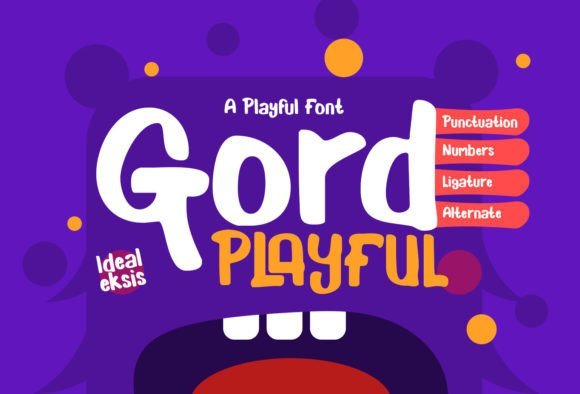
Remember that moment when you stumbled upon the perfect font to match your creative vision? For designers, finding that one special font can make all the difference in bringing a project to life. It’s that feeling of excitement and joy that I’m about to share with you, as we dive into the delightful world of the Gord Playful Font.
This charming font is designed to add a dash of playfulness to your designs, making it perfect for projects that call for a lighthearted and cheerful vibe. With its rounded edges and playful curves, the Gord Playful Font exudes a friendly and approachable feel that’s sure to captivate your audience. Whether you’re working on a children’s book, a party invitation, or any other design that requires a touch of whimsy, this font is sure to bring a smile to your face and a spring to your creative step.
Gord Playful Font Key Features
- Character Set: The font includes a comprehensive character set, covering Latin, Cyrillic, and Greek alphabets, as well as a range of punctuation marks and symbols.
- Unique Characteristics: Gord Playful Font features a distinctive, playful design with rounded edges and irregular shapes, adding a touch of whimsy and personality to text.
Gord Playful Font Review
Gord Playful Font is a fun and playful sans-serif typeface that I had the chance to review. Here are my thoughts on what works well and what doesn’t.
- Its playful and energetic vibe is perfect for modern branding and digital projects.
- The font has a wide range of weights, from light to bold, which makes it suitable for various design applications.
- The letterforms are well-designed, with clean lines and smooth curves that make it easy to read.
- The font also includes a variety of ligatures, which adds a touch of sophistication to the overall design.
- The font may not be suitable for traditional print designs, as it can appear too casual or informal.
- The font’s x-height can be a bit too small for certain text sizes, which may affect readability.
- The font family is not as extensive as some other popular sans-serif fonts, which may limit its versatility.
Gord Playful Font is a great choice for modern design projects that require a playful and energetic vibe. While it has some limitations, it’s a solid font that can add a lot of personality to your designs. I’d recommend it for digital projects, such as social media graphics, website headers, and app interfaces.
Gord Playful Font Practical Application Guide
The Gord Playful Font is suitable for various creative projects, including:
– Children’s book illustrations
– Party invitations
– Branding materials
Experiment with different font sizes, colors, and combinations to create unique and playful effects.
Use the Gord Playful Font in conjunction with bold or italic fonts for added emphasis.
Apply the font to creative elements, such as hand-drawn shapes or graphics, for a cohesive look.
Alternatives to Gord Playful Font
Pacifico is a beautiful, elegant script font perfect for creating a sophisticated and luxurious feel. It’s ideal for use in branding, advertising, and editorial designs. Pacifico is more elegant and refined compared to Gord Playful Font, which has a more playful and whimsical feel.
Great Vibes is a modern, elegant script font that works well for both digital and print designs. It’s perfect for creating a friendly and approachable atmosphere, making it suitable for use in social media, blog designs, and other informal projects. Great Vibes has a more subtle and sophisticated feel compared to Gord Playful Font, which is bolder and more eye-catching.